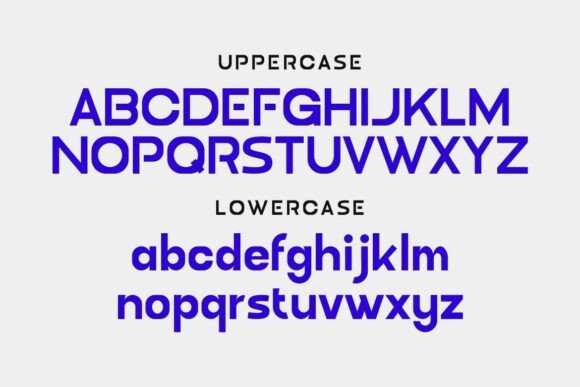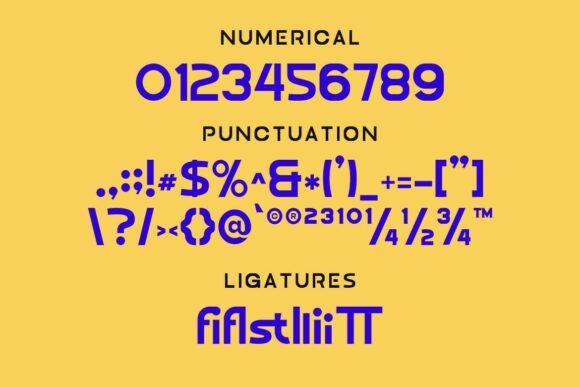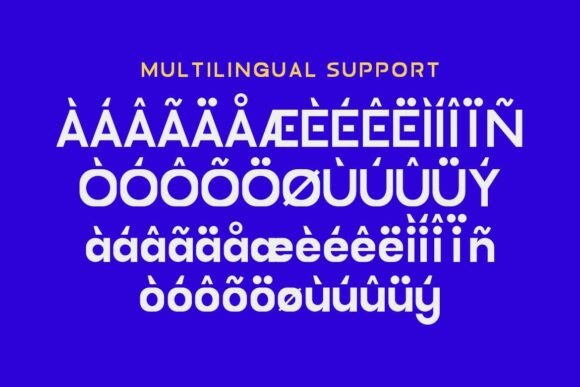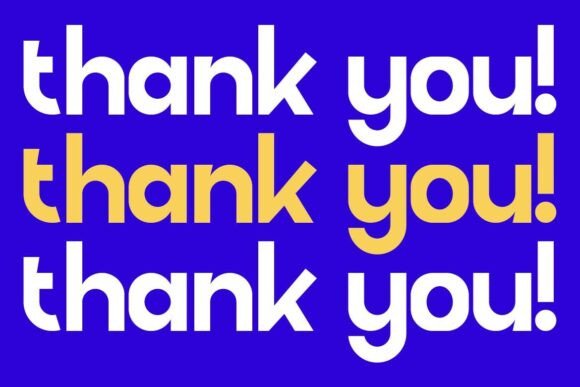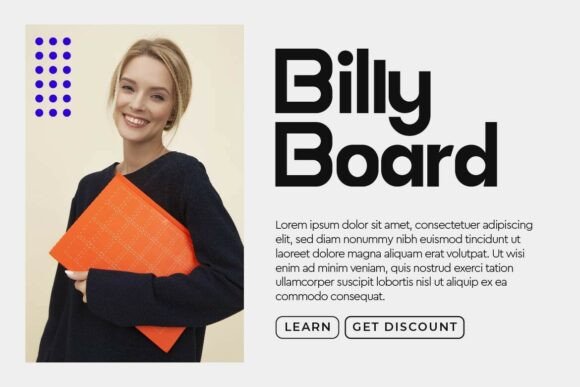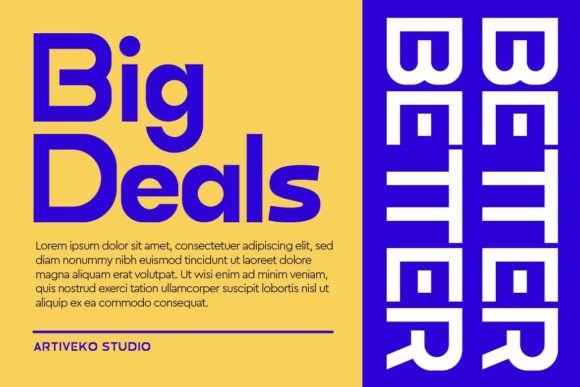
Introducing Ballada Font: Elevate Your Brand with Sleek Sophistication
In the world of typography, a font can make or break a brand’s identity. For designers and crafters seeking to make a lasting impression, Ballada Font emerges as a game-changer. This sleek and stylish sans display font is meticulously crafted for powerful brand identities, combining clean lines, geometric precision, and modern elegance. Whether you’re working on logos, wordmarks, packaging, editorial titles, or social media graphics, Ballada is the perfect choice for projects that demand attention.
The Essence of Ballada Font
Ballada Font is not just another addition to the vast universe of typefaces. It’s a thoughtfully designed sans serif font that exudes confidence and sophistication. Its geometric construction provides a clean and crisp look, making it incredibly versatile for various design applications. From the minimalist to the avant-garde, Ballada’s unique character can adapt to a wide range of styles, ensuring your brand stands out in a crowded marketplace.
Key Features of Ballada Font
- Clean Lines and Geometric Precision: Ballada’s design is rooted in simplicity and precision. Its clean lines and geometric shapes contribute to a modern and streamlined appearance, perfect for brands aiming to convey a sense of innovation and forward-thinking.
- Modern Elegance: Despite its modern approach, Ballada does not compromise on elegance. It carries a sophisticated vibe that can elevate any design, making it suitable for high-end brands and luxury products.
- Versatility: One of the standout features of Ballada is its versatility. It can be used across various mediums, from digital platforms like social media and websites to print materials such as packaging and editorial titles.
- Attention-Grabbing: In a world where grabbing attention is half the battle, Ballada’s distinctive style ensures that your brand doesn’t go unnoticed. Its unique character can help you cut through the noise and leave a lasting impression on your audience.
Applications of Ballada Font
Given its versatile nature, Ballada Font can be applied in numerous design projects. Here are some of the most impactful uses:
- Logos and Wordmarks: A logo is often the first point of contact between a brand and its audience. Ballada’s sleek design makes it an excellent choice for creating memorable logos and wordmarks.
- Packaging: For brands looking to make their packaging stand out on crowded shelves, Ballada can add a touch of sophistication and modernity.
- Editorial Titles: Add a touch of elegance to your editorial content with Ballada. It’s perfect for article titles, headings, and any other prominent text that needs to capture the reader’s attention.
- Social Media Graphics: In the digital age, social media is a crucial platform for brand visibility. Ballada can help create eye-catching graphics that stand out in users’ feeds.
Why Choose Ballada Font?
In choosing Ballada Font, designers and crafters are opting for more than just a typeface; they’re embracing a design philosophy that prioritizes clarity, elegance, and impact. Here are a few reasons why Ballada should be at the top of your font considerations:
- Unique Identity: Ballada helps brands carve out a unique identity in a competitive market, setting them apart with its distinctive style.
- Professionalism: The font’s sleek and modern design conveys professionalism, making it suitable for brands aiming to project a polished image.
- Flexibility: Ballada’s versatility means it can be adapted to various design needs, from digital to print, without losing its charm.
In conclusion, Ballada Font is a powerful tool for designers and crafters looking to infuse their projects with a dose of modern sophistication and elegance. Its unique blend of clean lines, geometric precision, and stylish appeal makes it an excellent choice for brands aiming to make a lasting impression. Whether you’re crafting a brand identity, designing packaging, or creating engaging social media content, Ballada Font is poised to elevate your designs to new heights.